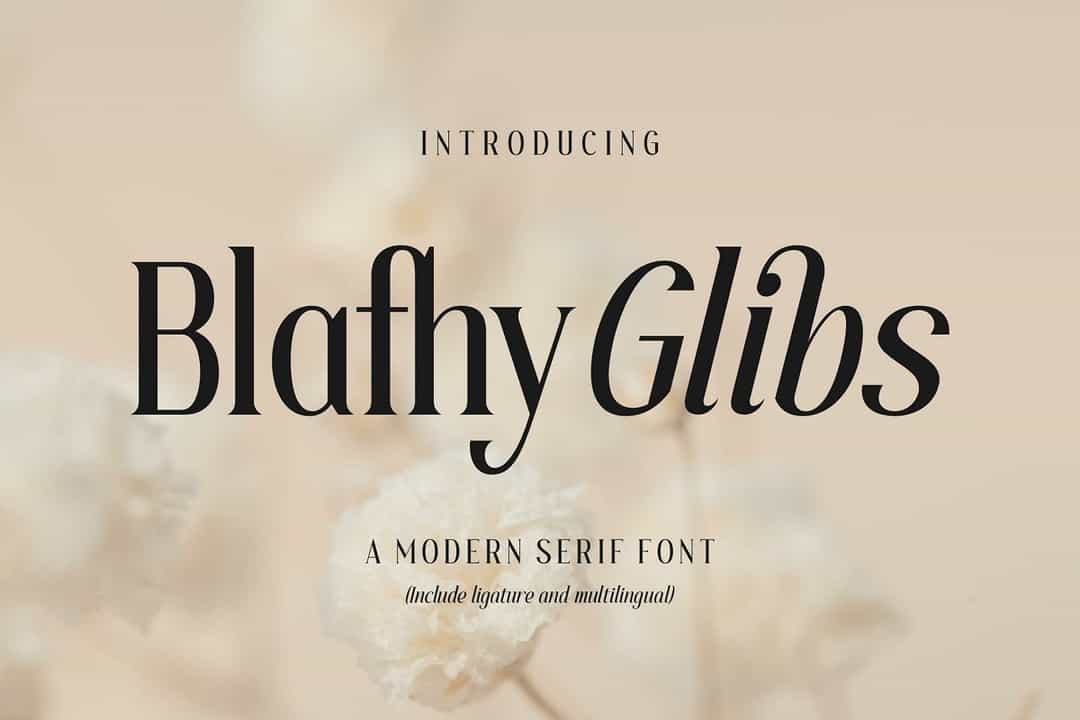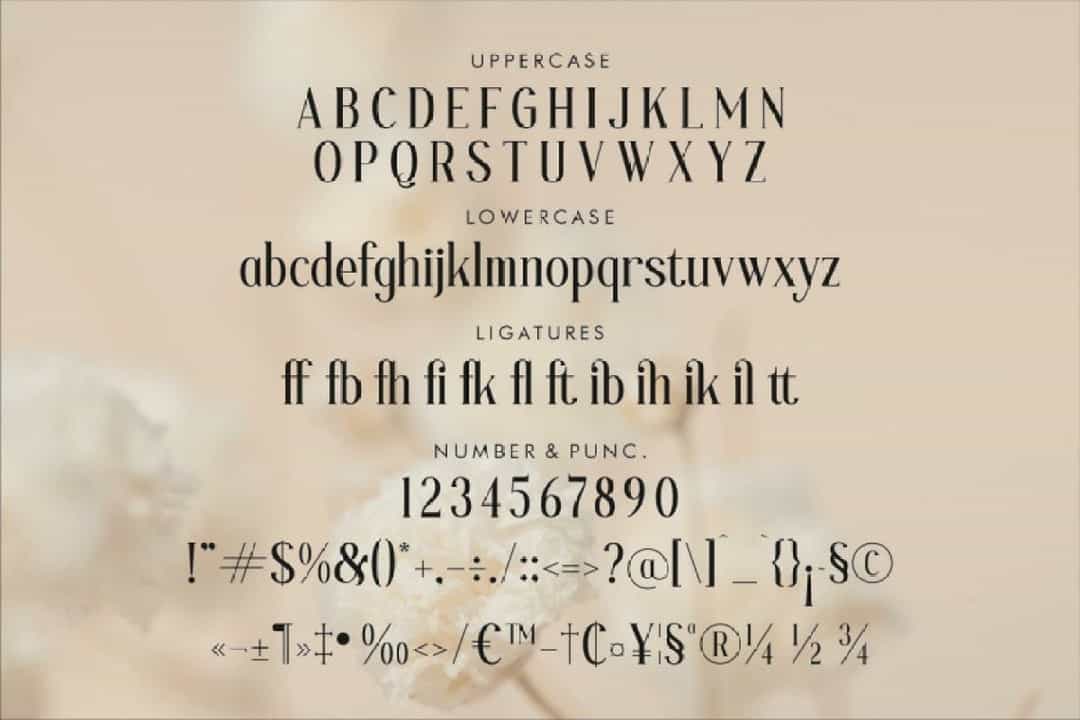
Blafhy Glibs is an elegant serif typeface with an exquisite and delicate appearance, designed specifically to make your work easier. Not too thin nor too heavy but balanced and varied in appearance; Florania was intended to bring balance to your work experience.